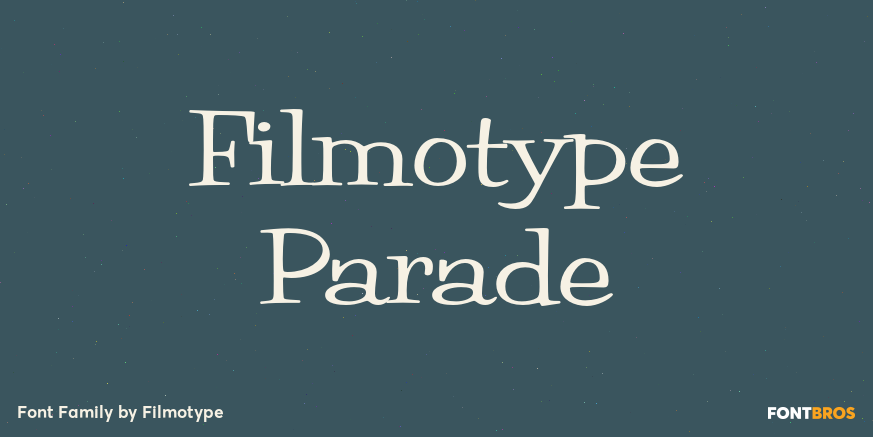
Filmotype Parade
About Filmotype Parade
Introduced by Filmotype in 1955, Filmotype Parade was released to compliment to its slimmer cousin Filmotype Orlando and afford Filmotype\’s customers the ability to set the same playful casual look in an extra wide setting. This Free Style typeface captures…